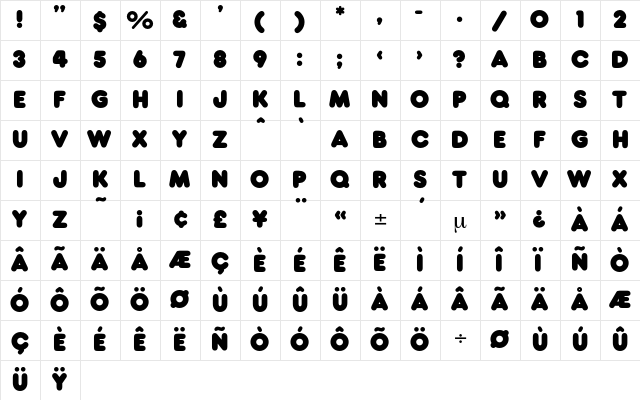
Kimberley Regular
Design Context for Kimberley Typeface
Kimberley is a composed and adaptable typeface that performs quietly and consistently across a wide range of design contexts.